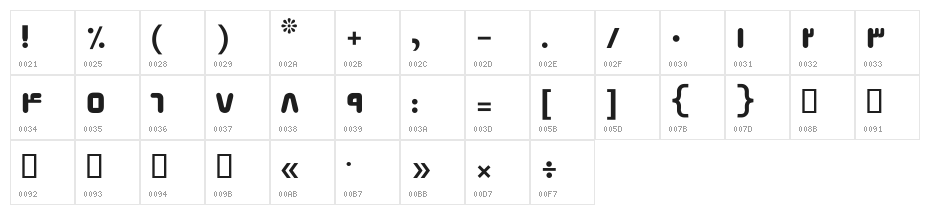
Soltaan Circle Font
Soltaan Circle Description
This font features a bold and geometric design with a modern aesthetic. The characters are constructed with clean lines and rounded edges, giving it a futuristic and sleek appearance. The uniformity in stroke width across the characters adds to its contemporary style. The numbers and special characters maintain the same geometric and rounded style, ensuring consistency throughout the font. This design is highly legible and eye-catching, making it suitable for various display purposes.